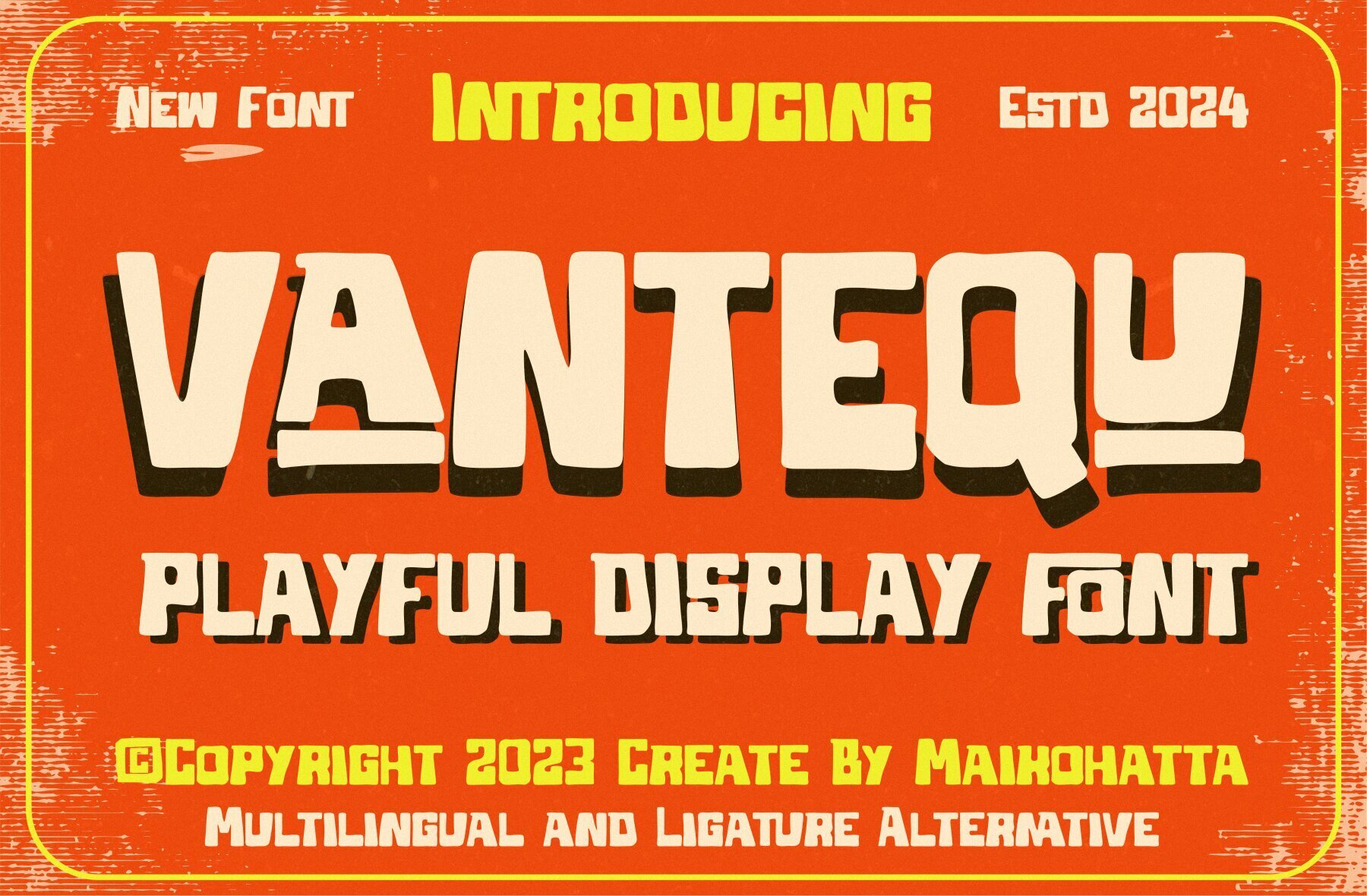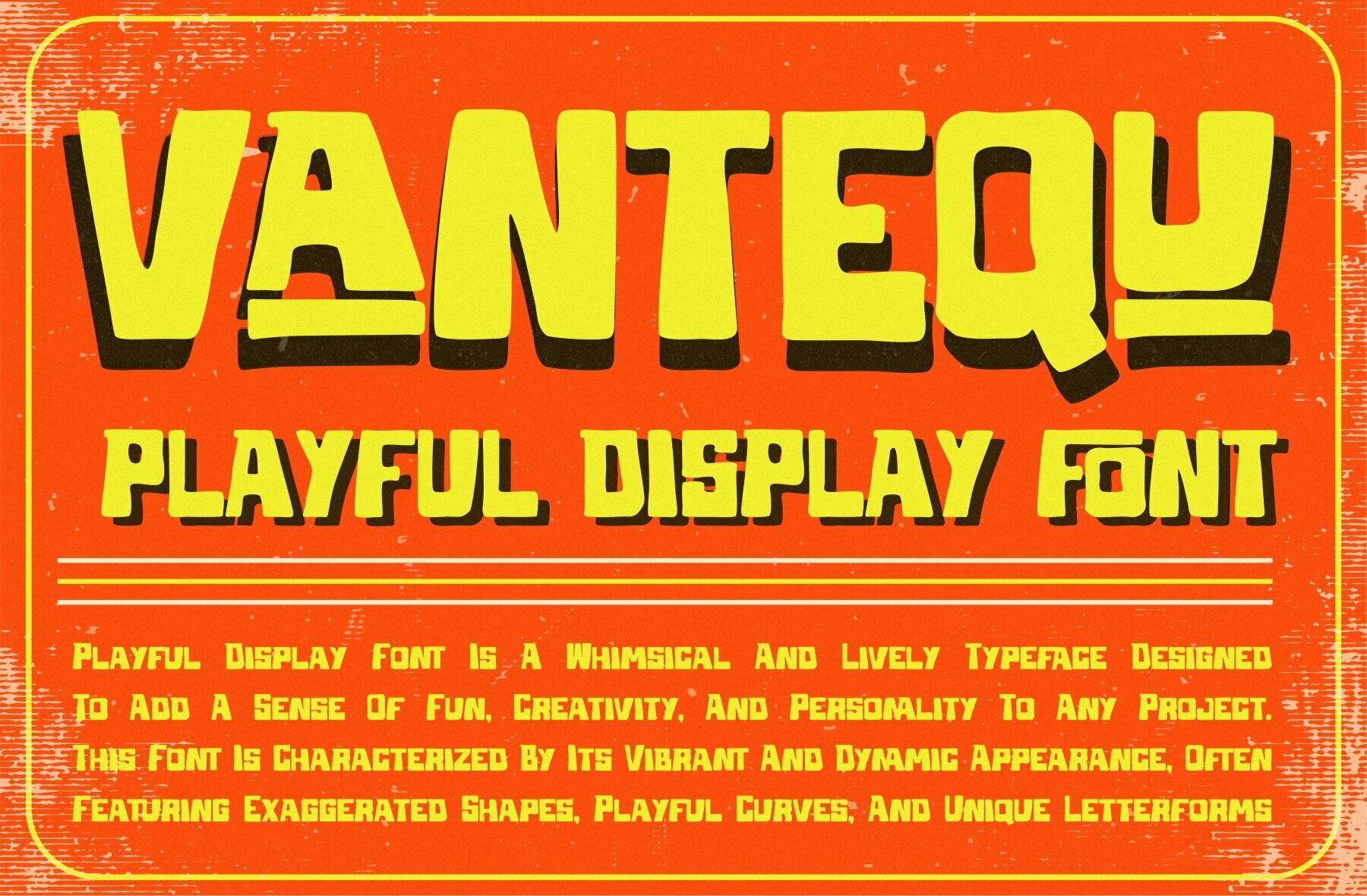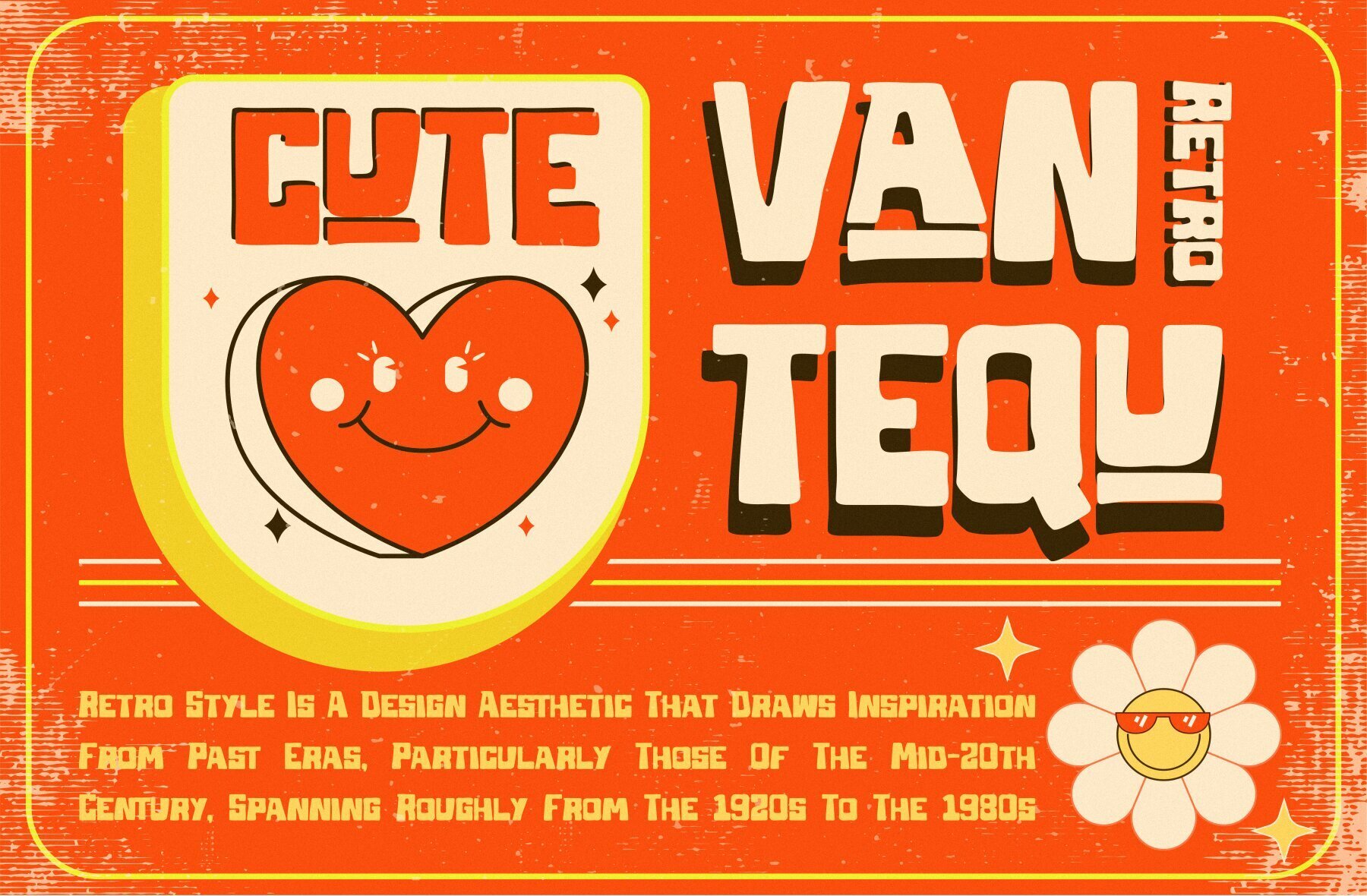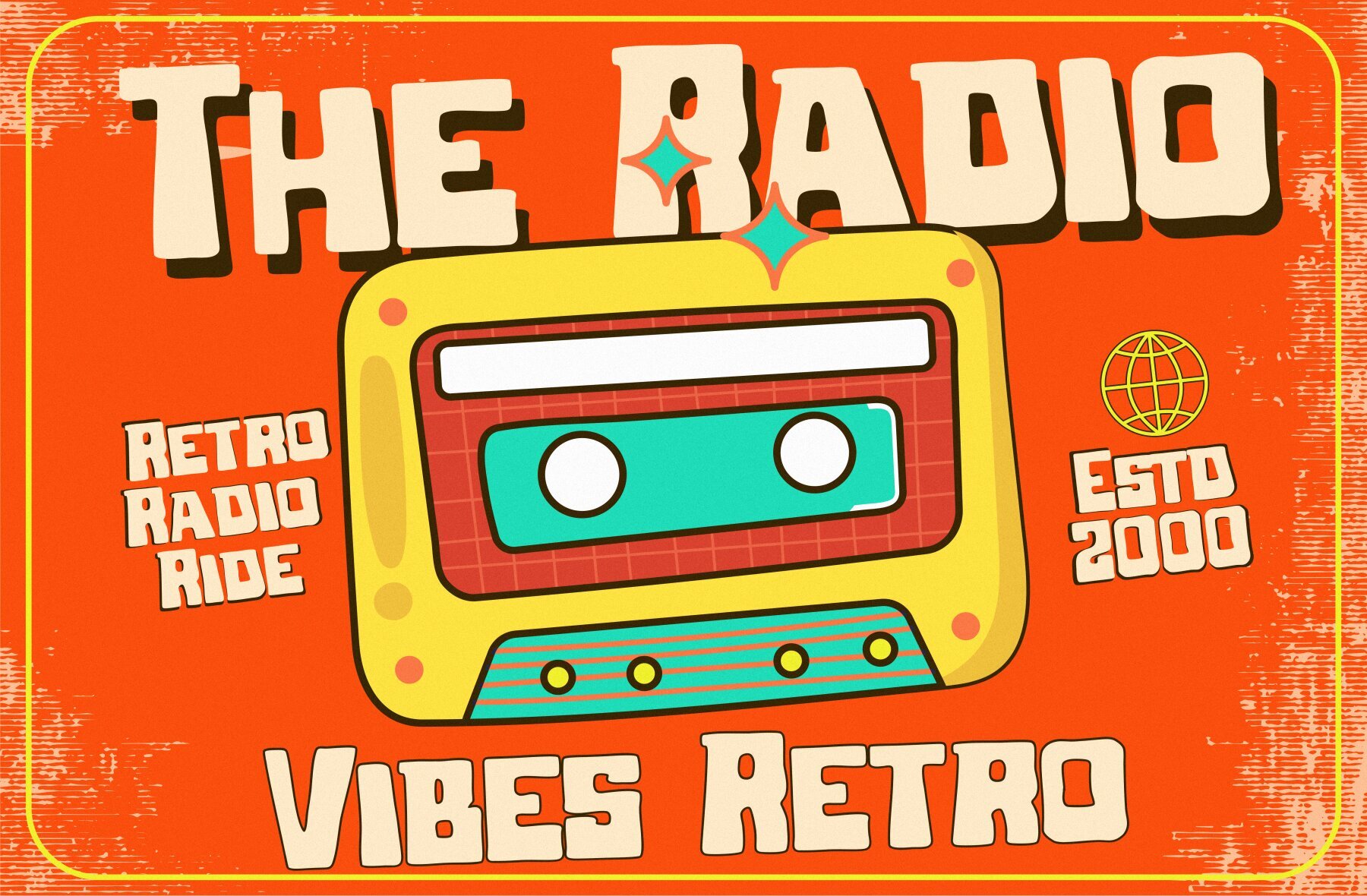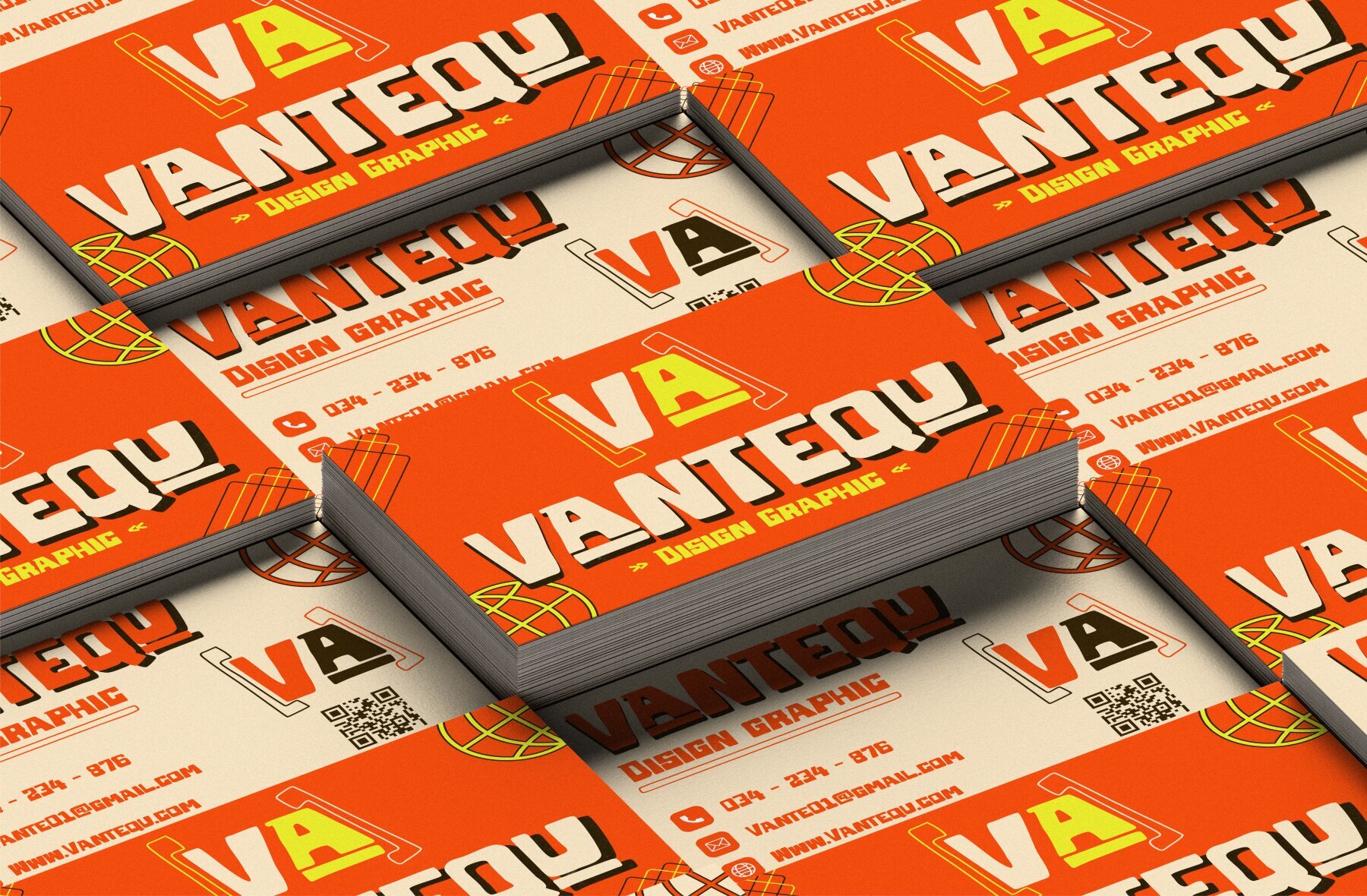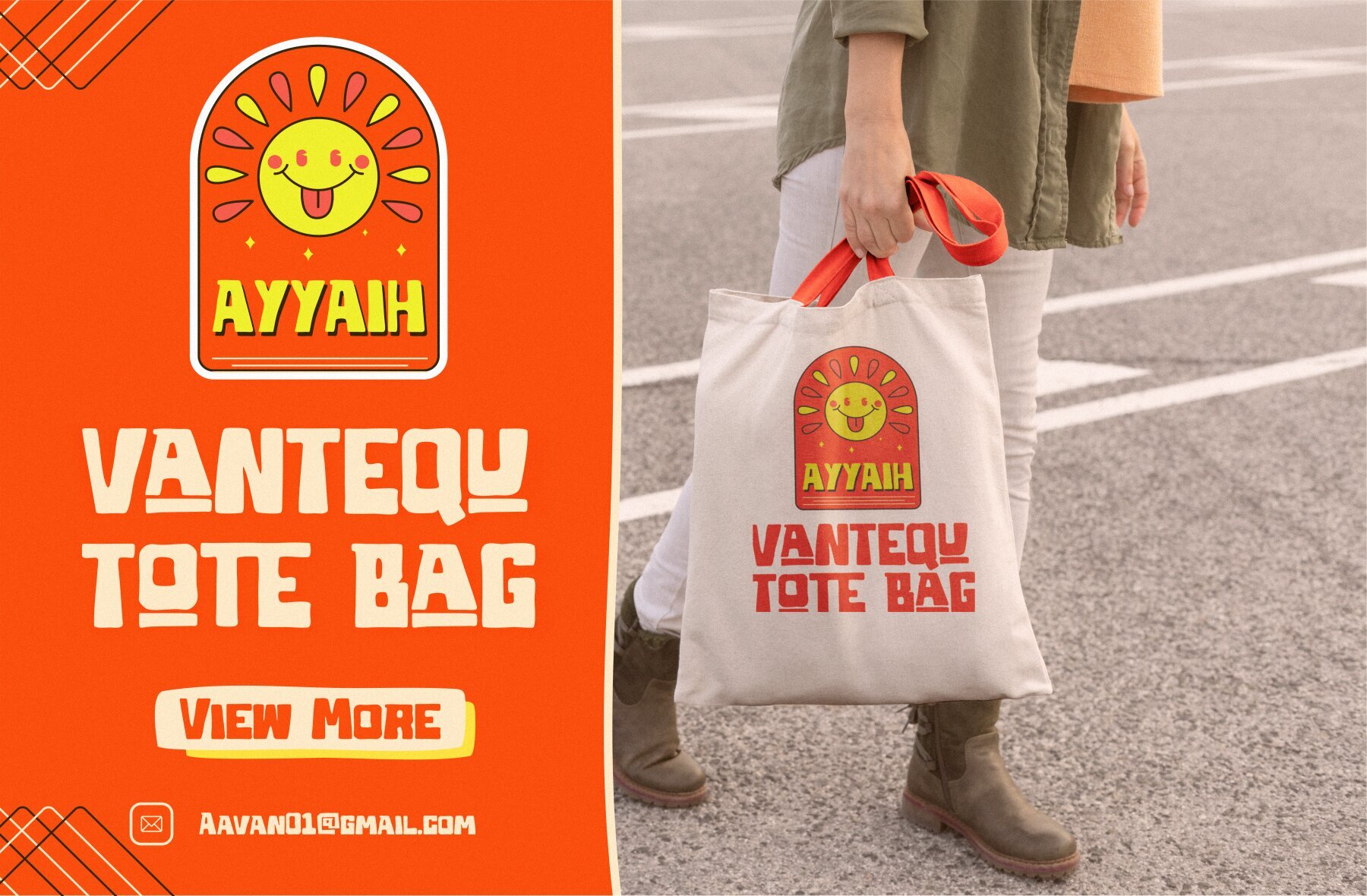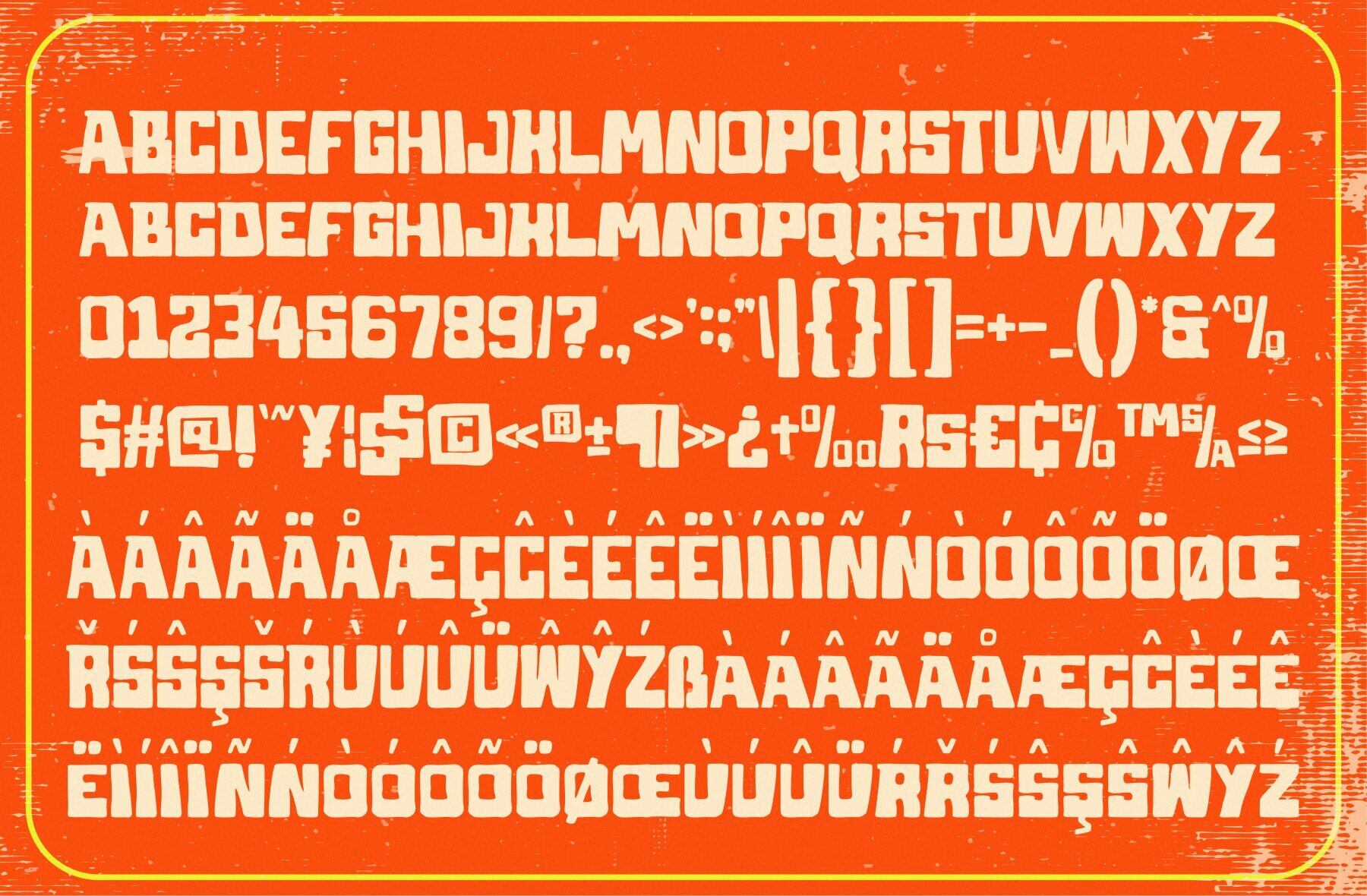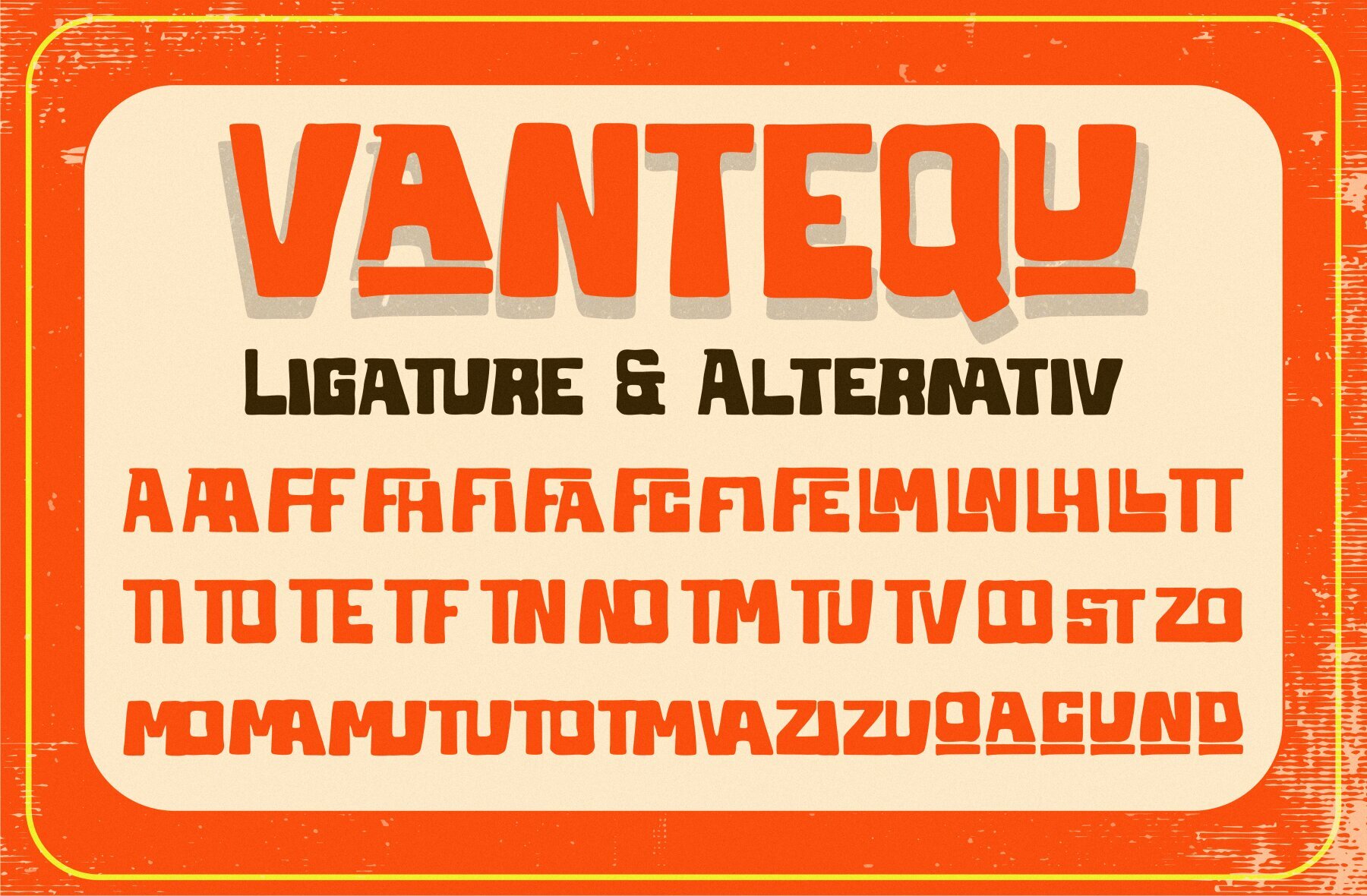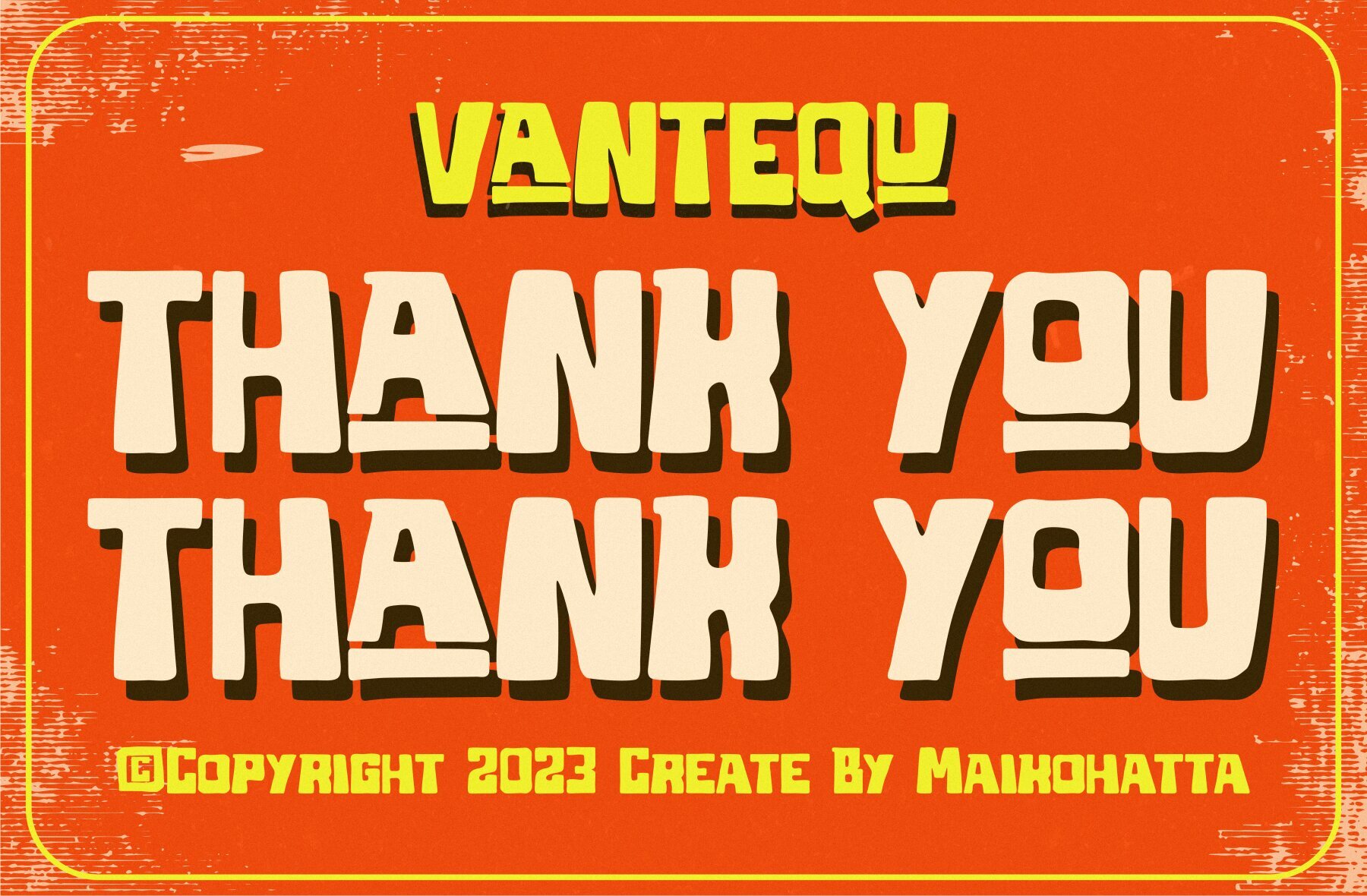
Vantequ Font
Vantequ Regular
This font is a bold, sans-serif, display typeface with a graffiti-inspired, hand-drawn aesthetic. Its irregular shapes and unequal letterforms give it an energetic and dynamic feel, perfect for making a statement in urban-themed design projects or casual branding where a sense of playfulness and raw expressiveness is desired.